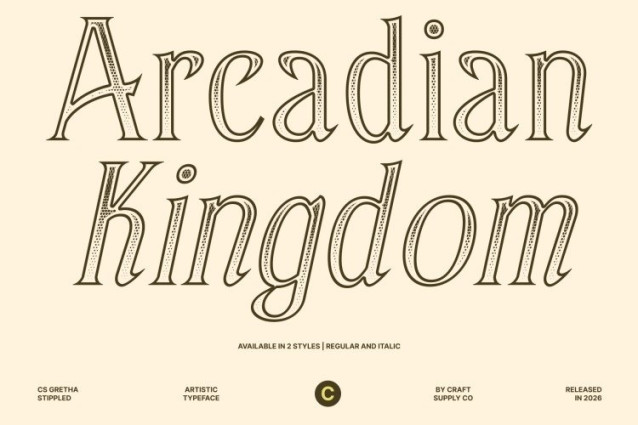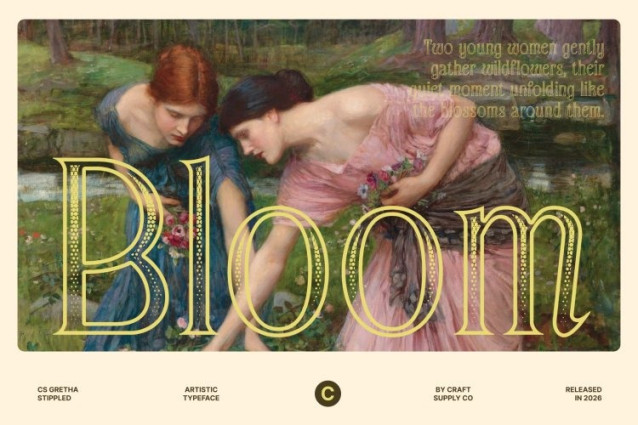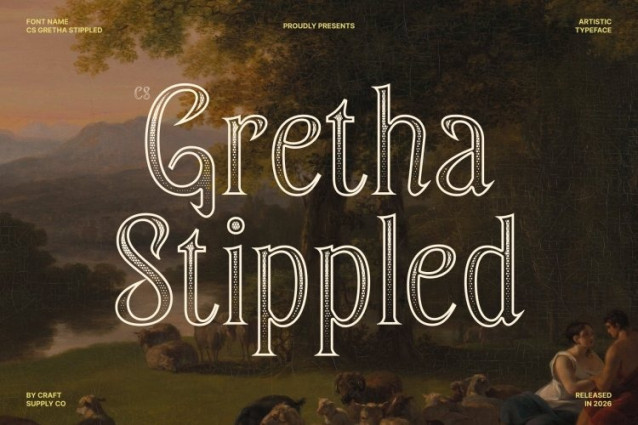
CS Gretha Stippled Font
CS Gretha Stippled Font – This is an elegant display serif font that beautifully blends artistic sophistication with vintage charm. Its graceful letterforms and refined proportions create a visually captivating style that feels both classic and expressive. Enhanced with a stippled texture, the font features a subtle dotted surface that adds depth and a handcrafted quality, enriching the overall retro aesthetic.
Distinctive Classic Elements with Artistic Flair
The design of this font combines bold serif structures with elegant curves and stylish details. These elements create a balanced composition that feels sophisticated yet visually engaging. The stippled texture enhances the letterforms by introducing gentle visual texture, giving the font a unique personality while maintaining clarity and elegance.
Retro Elegance with Nostalgic Appeal
Inspired by vintage typography, this font captures a nostalgic atmosphere that evokes the beauty of classic print design. Its refined curves and decorative touches create a timeless look that feels warm, artistic, and memorable.
Perfect for Elegant and Creative Projects
This font works beautifully for high-end branding, vintage-style invitations, editorial headlines, packaging, and artistic layouts. Its combination of elegant serif forms and textured detailing ensures a strong visual presence while maintaining a refined and sophisticated character.